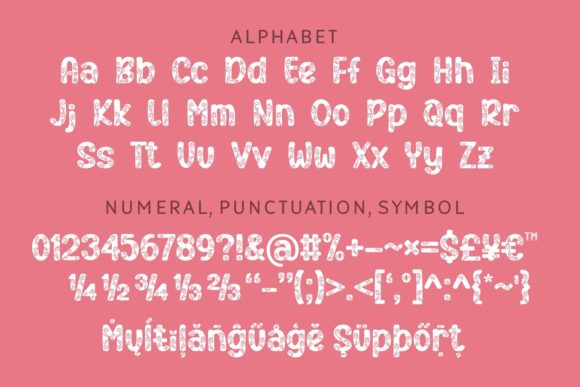
Vibes Inside is the perfect font for the crafter. Each character has a beautiful floral swirly pattern, that brings a warm feeling to your projects. Perfect to use for Valentine’s Day and Mother’s Day crafts.
Vibes Inside Font